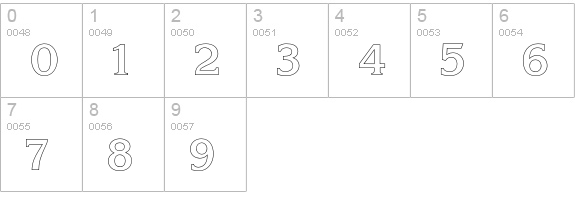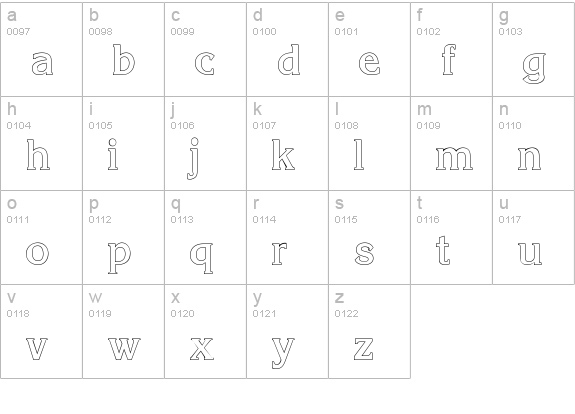
KorinnaOutline Font Details
KorinnaOutline font is a modern and stylish typeface that exudes elegance and sophistication. With its clean lines and sharp edges, this font is perfect for adding a touch of class to any design project. The outline style of KorinnaOutline font gives it a unique and eye-catching look that will make your text stand out. Best of all, KorinnaOutline font is completely free to download at FontsMarket.com. This means that you can enhance your designs without having to worry about breaking the bank. Whether you're working on a professional project or a personal creation, KorinnaOutline font is a versatile choice that will add a touch of flair to your work. Download it today and see the difference it can make in your designs!